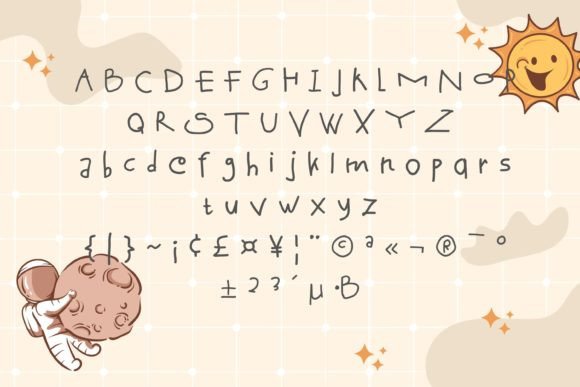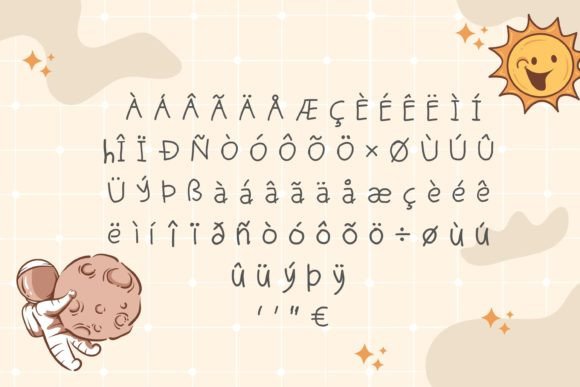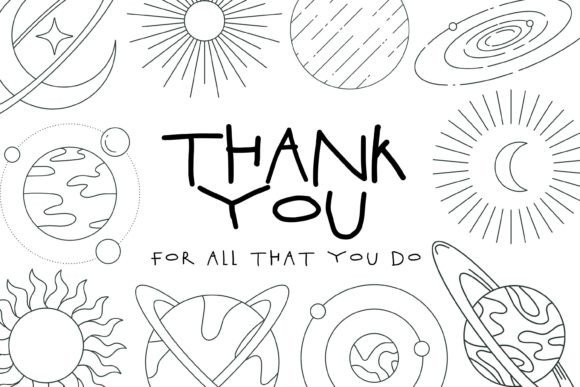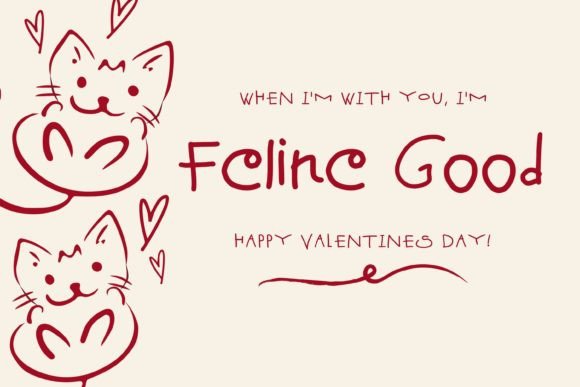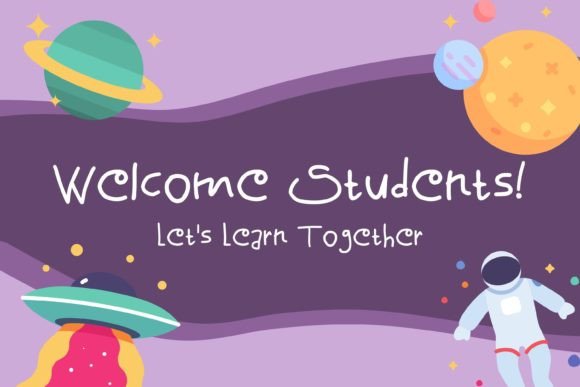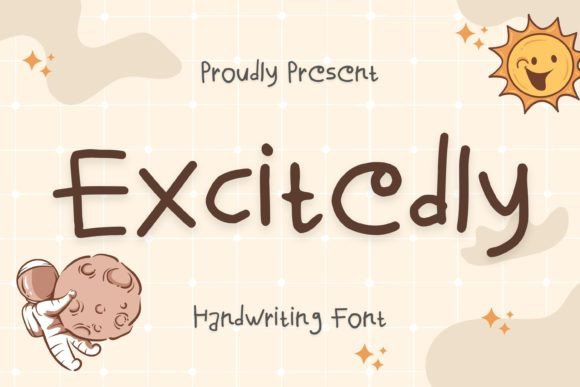
Introducing Excitedly Font: The Ultimate Choice for Creative Designs
Are you tired of using the same old fonts in your designs? Look no further than Excitedly Font, a childish handwritten font that’s sure to add a touch of whimsy and personality to your projects. With its cute, friendly, natural, and unique style, Excitedly Font is incredibly versatile and can be used in a wide range of designs, from playful crafts to professional branding.
The Characteristics of Excitedly Font
Excitedly Font is a one-of-a-kind font that’s designed to evoke a sense of excitement and joy. Its childish handwritten style is perfect for designs that require a playful and youthful touch. The font’s cute and friendly aesthetic makes it ideal for projects that need to appeal to a younger audience, such as children’s books, educational materials, and kids’ party invitations.
One of the standout features of Excitedly Font is its natural and unique style. Unlike other fonts that can look stiff and formal, Excitedly Font has a relaxed and effortless feel that’s perfect for designs that need to feel approachable and down-to-earth. Whether you’re creating a logo, a poster, or a social media graphic, Excitedly Font is sure to add a touch of personality and charm.
The Benefits of Using Excitedly Font
So why choose Excitedly Font for your designs? For starters, its versatility is unmatched. The font can be used in a wide range of projects, from digital designs like websites and social media graphics to print materials like brochures and flyers. Excitedly Font is also incredibly easy to read, making it perfect for designs that require a clear and concise message.
Another benefit of using Excitedly Font is its ability to evoke emotions. The font’s playful and childish style is sure to bring a smile to your audience’s faces, making it perfect for designs that need to create a positive and uplifting message. Whether you’re creating a brand identity, a marketing campaign, or a personal project, Excitedly Font is sure to help you connect with your audience on an emotional level.
How to Use Excitedly Font in Your Designs
So how can you use Excitedly Font in your designs? The possibilities are endless! Here are a few ideas to get you started:
- Use Excitedly Font in your branding materials, such as logos, business cards, and letterheads, to add a touch of personality and whimsy.
- Create playful and eye-catching social media graphics, such as Facebook posts and Instagram stories, that showcase your brand’s fun and creative side.
- Design adorable children’s books, activity sheets, and educational materials that will delight kids and parents alike.
- Add a personal touch to your party invitations, thank-you cards, and other personal correspondence with Excitedly Font.
Tips and Tricks for Working with Excitedly Font
Here are a few tips and tricks to keep in mind when working with Excitedly Font:
- Use Excitedly Font in combination with other fonts to create a unique and visually appealing typography.
- Don’t be afraid to get creative and try out new and unusual design ideas.
- Make sure to test your design on different devices and platforms to ensure that the font looks great everywhere.
In conclusion, Excitedly Font is a versatile and playful font that’s perfect for designers and crafters who want to add a touch of personality and whimsy to their designs. With its cute, friendly, natural, and unique style, Excitedly Font is incredibly fitting to a large pool of designs, and the only limit is your imagination! So why not give Excitedly Font a try today and see what amazing designs you can create?